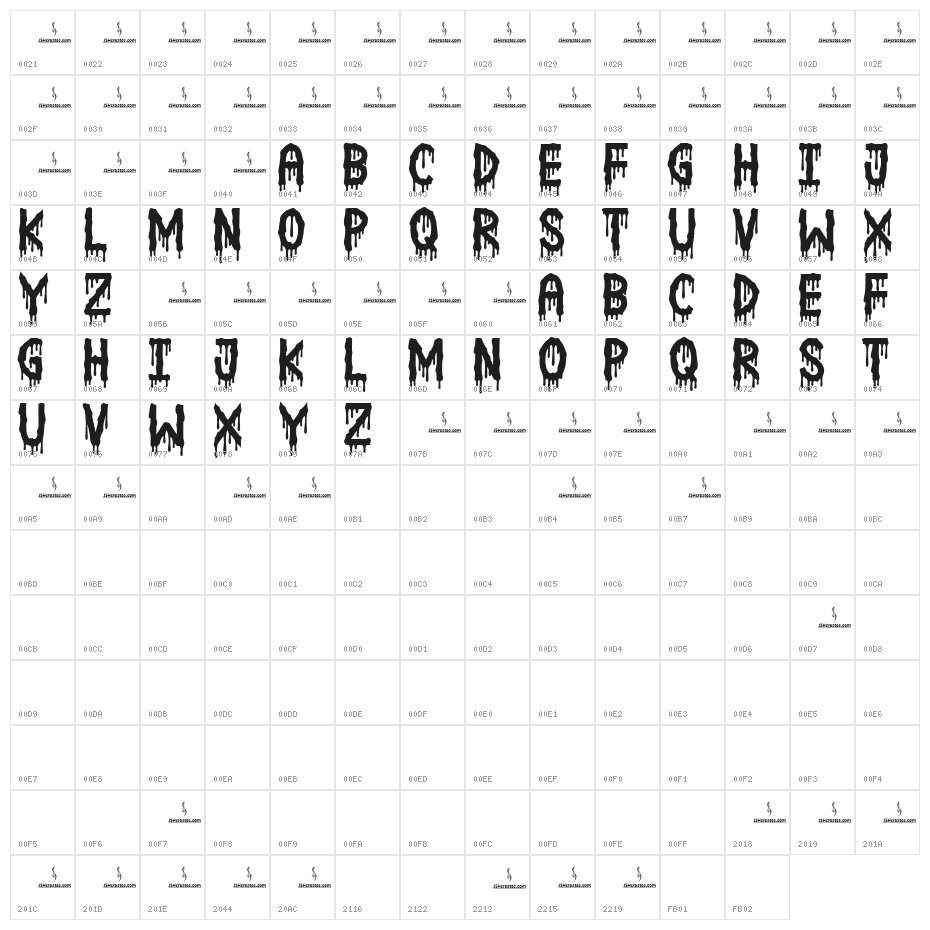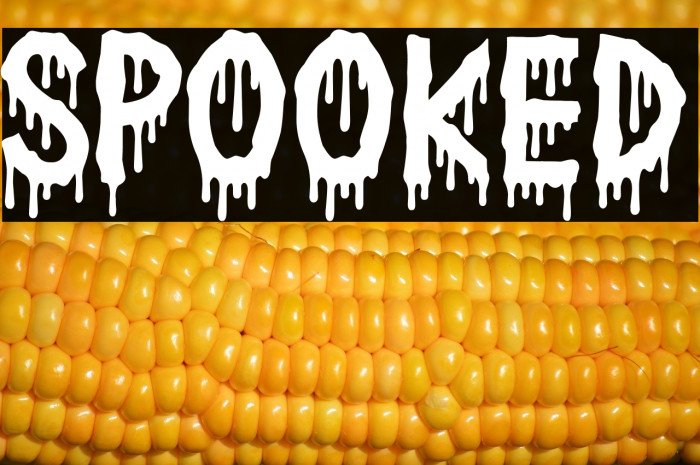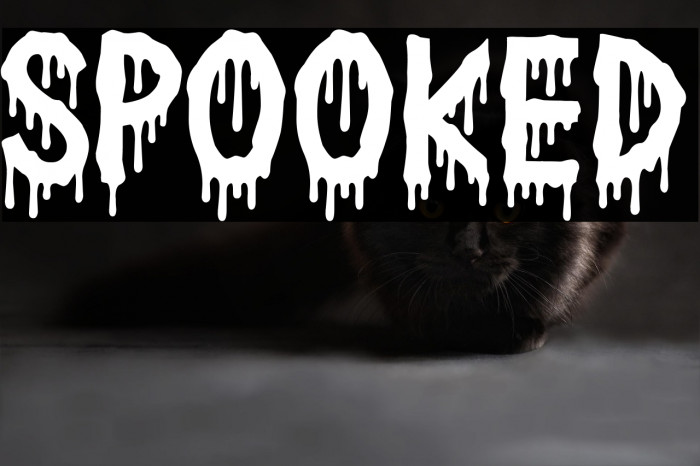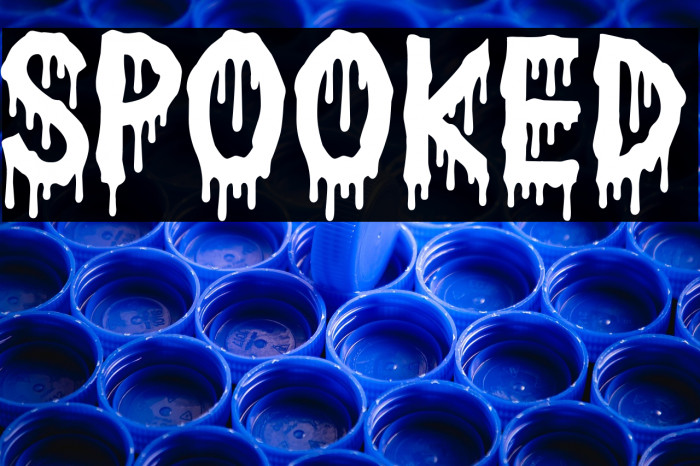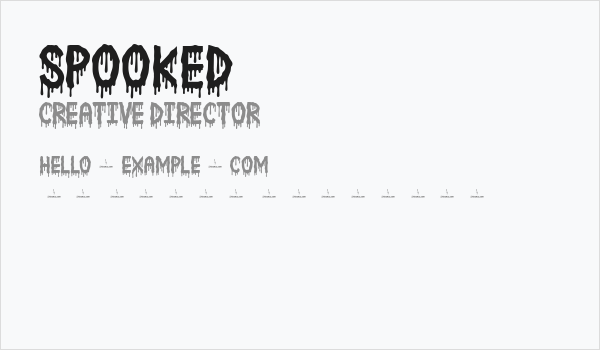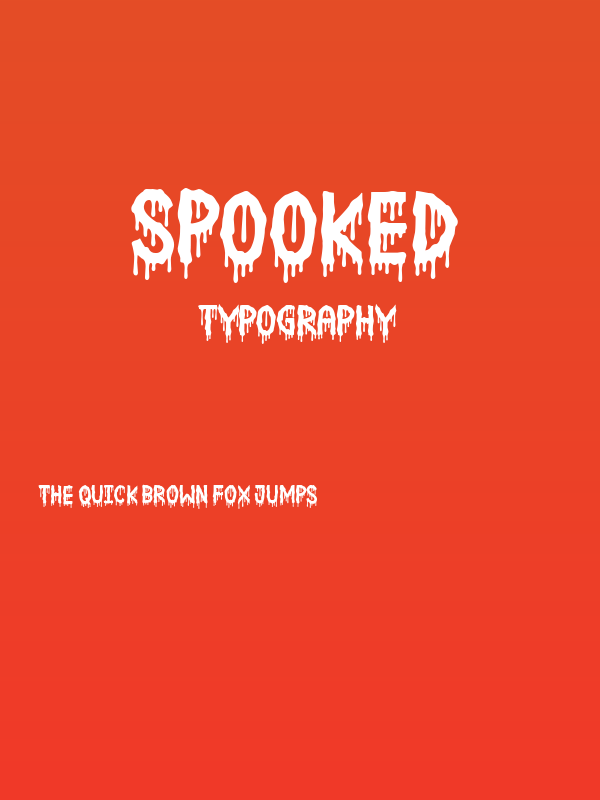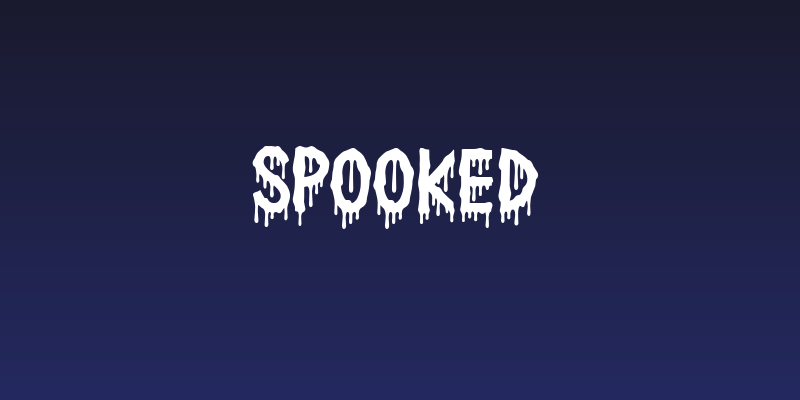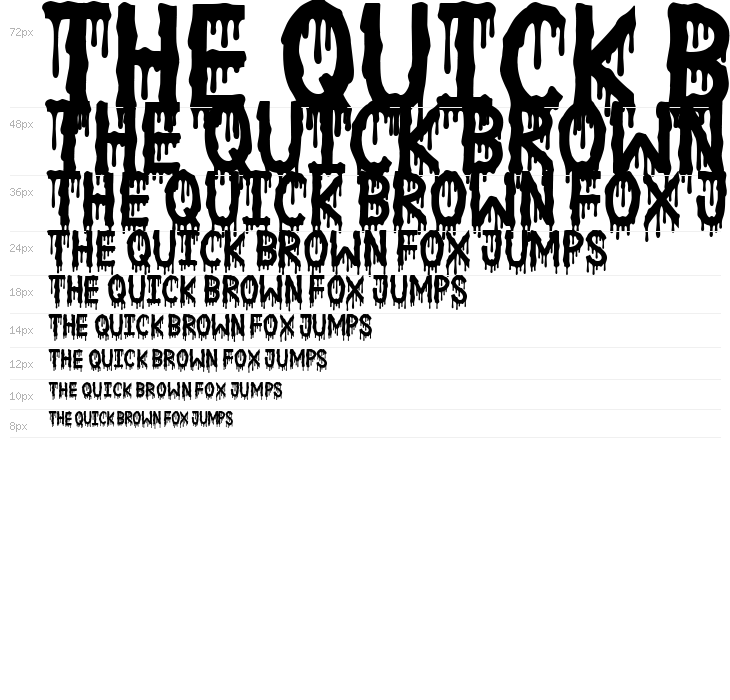
Spooked Font
Spooked Description
This font features a unique, dripping effect that gives it a spooky and eerie appearance, reminiscent of melting wax or slime. The uppercase letters are bold and dramatic, with each character having a distinct, irregular edge that enhances the horror theme. The font is perfect for Halloween-themed projects or any design that requires a chilling and unsettling vibe. The characters are evenly spaced, maintaining readability while still delivering a strong visual impact. The overall style is decorative and playful, making it ideal for creative and thematic uses.